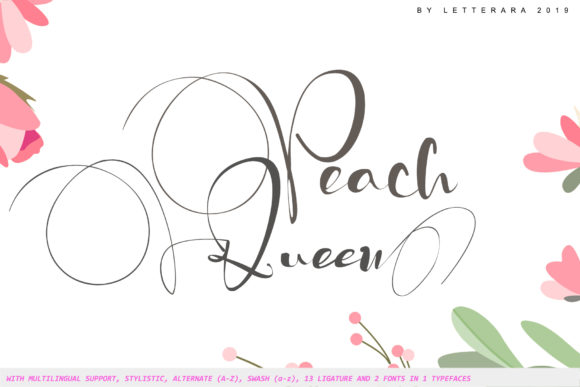
Introducing Peach Queen Font: A Journey into the Realm of Enchanting Script
In a world saturated with monotony, Peach Queen Font emerges as a breath of fresh air, an exquisite script font that weaves a tapestry of elegance and playfulness. Crafted with meticulous attention to detail by the visionary Thomasaradea, Peach Queen is not just a font; it's an invitation to embark on a creative odyssey, where imagination reigns supreme.
Picture this: a world where words dance off the page, imbued with an energy that captivates and enchants. Peach Queen Font possesses this very essence, transforming ordinary text into captivating works of art. Its alluring curves and delicate swashes intertwine seamlessly, evoking a sense of whimsy and sophistication.
Unleash your inner artist and let Peach Queen Font guide you on a creative expedition. Adorn your designs with a touch of authenticity, whether it's a heartfelt letter, an eye-catching social media post, or a stunning logo that commands attention. Peach Queen Font effortlessly adapts to any project, becoming an integral part of your visual storytelling.
With Peach Queen Font as your creative ally, you can:
- Manifest Enchanting Logos: Envision a logo that exudes both elegance and playfulness, a visual masterpiece that draws the eye and leaves a lasting impression. Peach Queen Font grants you the power to craft such logos, captivating your audience at first glance.
- Enchant Social Media: Transform your social media presence into a captivating tapestry of visual delights. Peach Queen Font adds a touch of whimsy and charm to your posts, making them stand out in the crowded digital landscape.
- Unleash Creative Invitations: Imagine invitations that transport your guests to a realm of enchantment, evoking a sense of anticipation and excitement. Peach Queen Font effortlessly captures this magic, creating invitations that are as unique as the events they announce.
- Craft Heartfelt Letters: Express your emotions with a touch of elegance. Peach Queen Font lends a personal touch to your letters, making them cherished keepsakes that convey the depth of your sentiments.